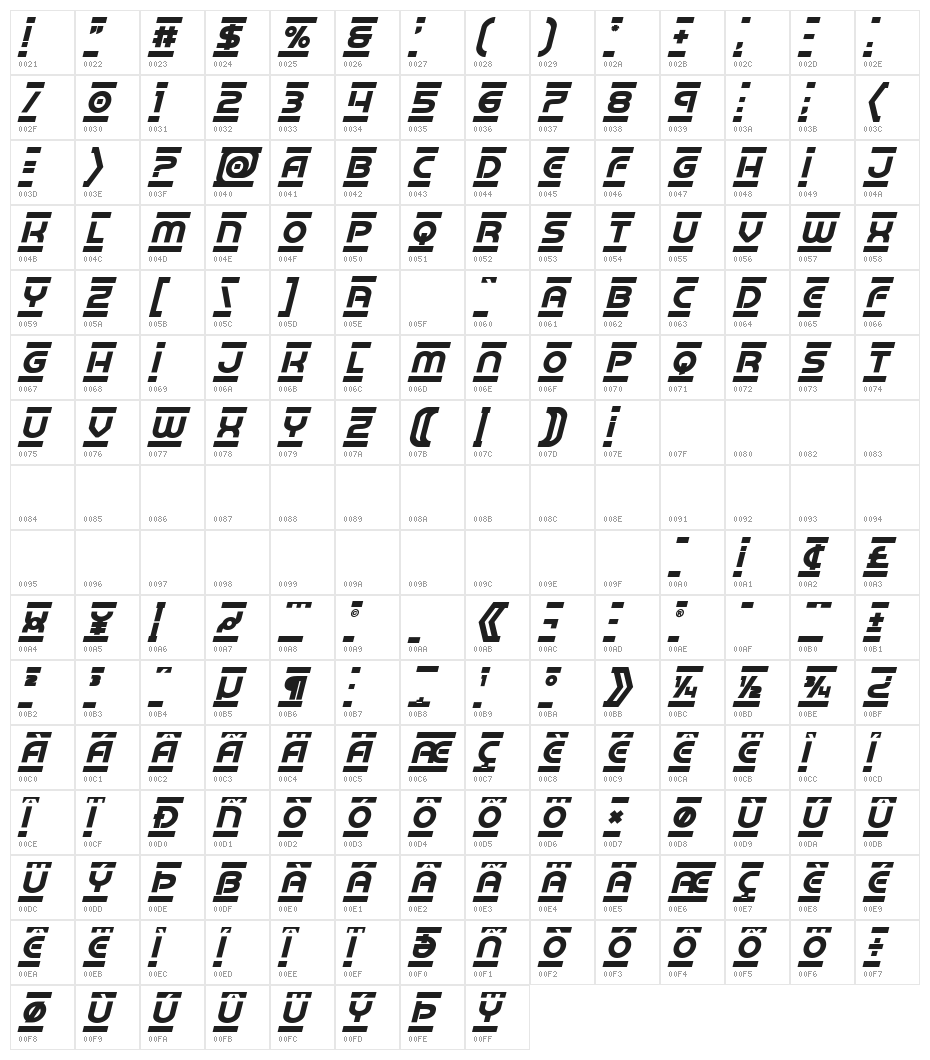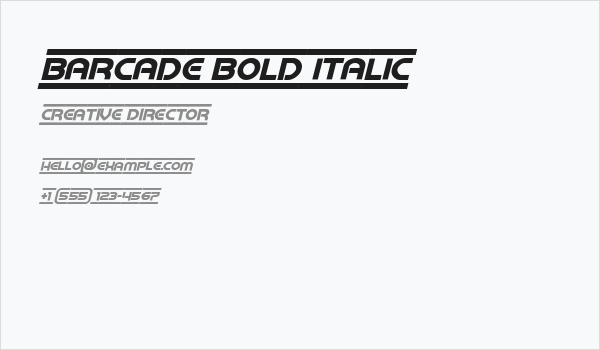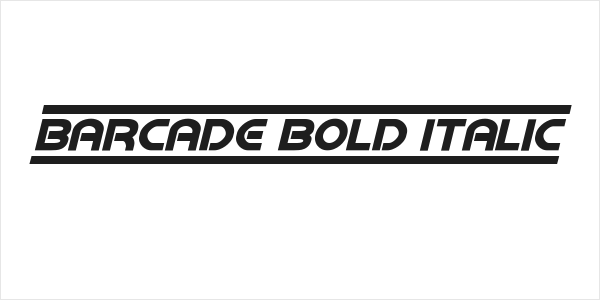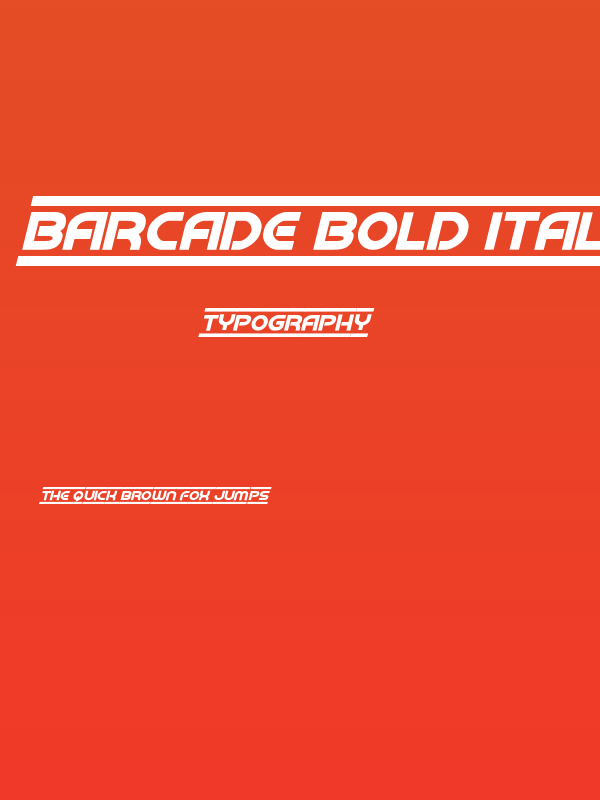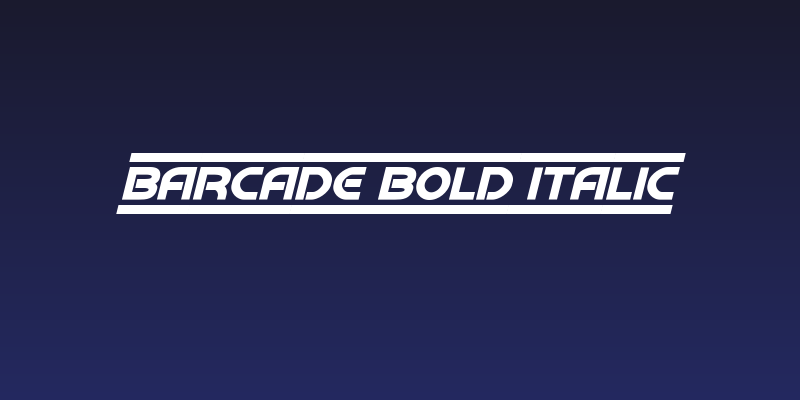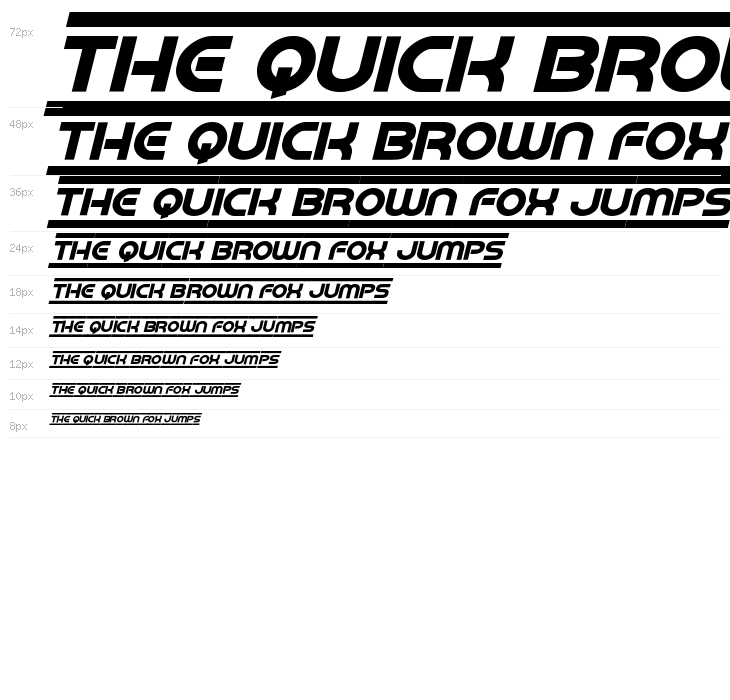
Barcade Bold Italic Font
Barcade Bold Italic Description
This font features a bold and italicized style with a futuristic and dynamic appearance. The characters are designed with a forward slant, enhancing the sense of motion and energy. The strokes are thick and consistent, providing a strong visual impact. The font includes uppercase and lowercase letters, numbers, and a variety of special characters. Its geometric shapes and sharp angles contribute to a modern and edgy look, making it suitable for attention-grabbing designs.
| Proposed Projects | Ideal for projects that require a modern and energetic feel, such as tech branding, sports team logos, or video game titles. |